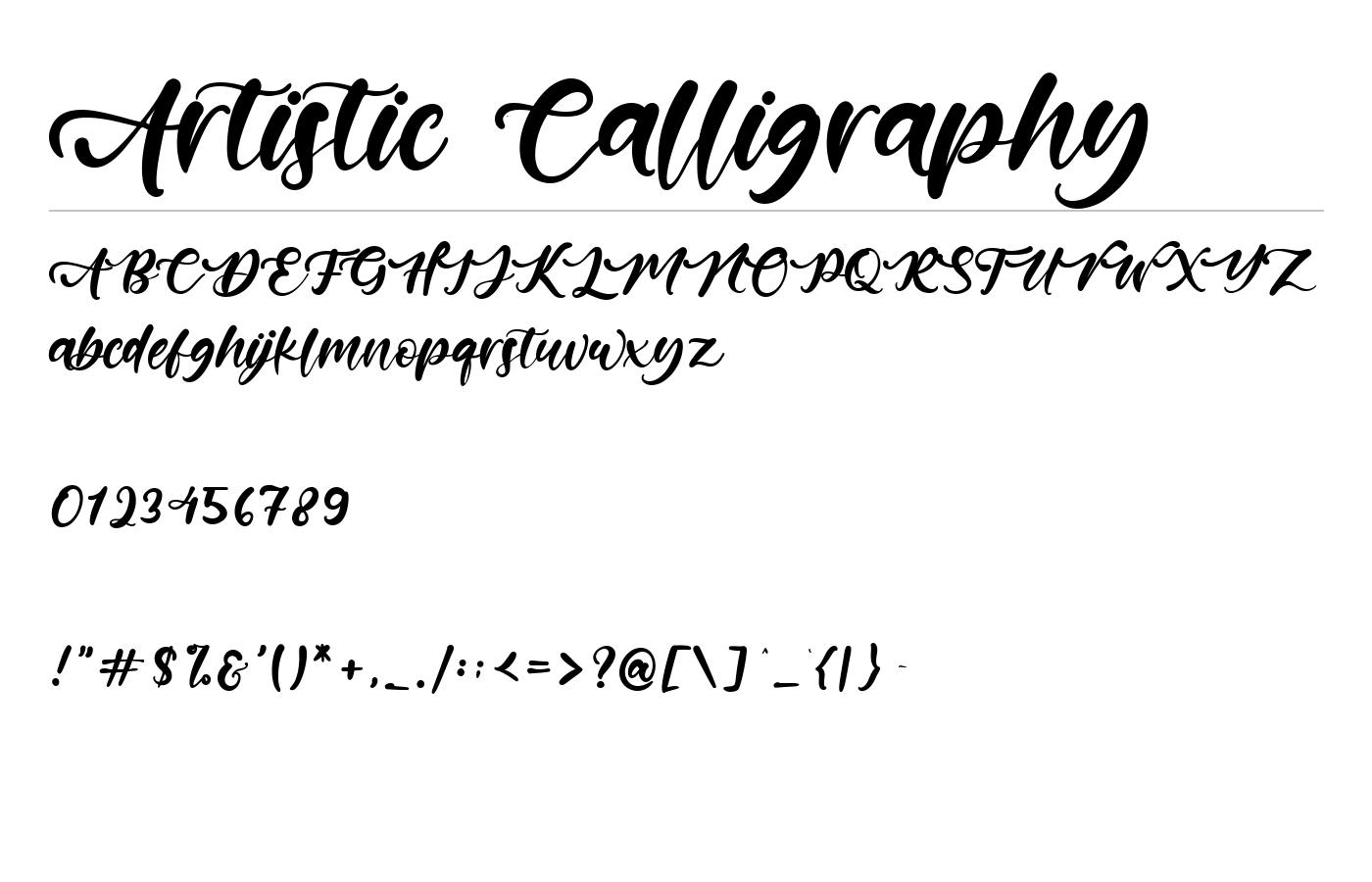
Artistic Calligraphy Font is a stylish and expressive script typeface with bold, flowing strokes that mimic elegant handwritten calligraphy. Its dynamic letterforms feature smooth curves and varying stroke widths, creating a refined yet approachable personality perfect for invitations, branding, and creative headlines. This font works beautifully in designs that aim to convey sophistication with a personal, artistic touch.
Artistic Calligraphy Font
About Artistic Calligraphy Font
| Font family | Artistic Calligraphy Font |